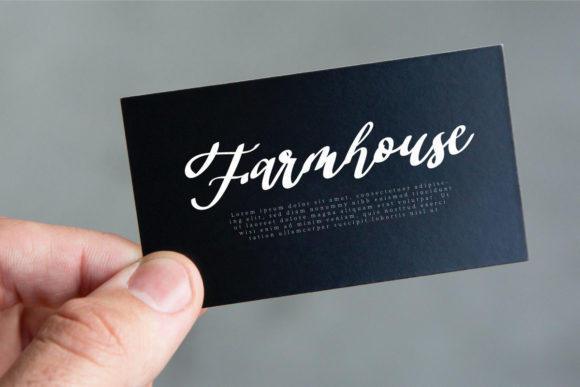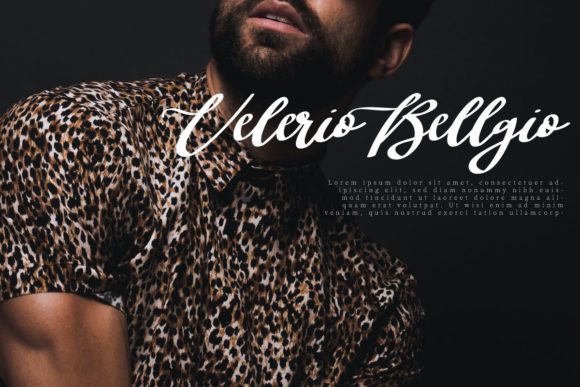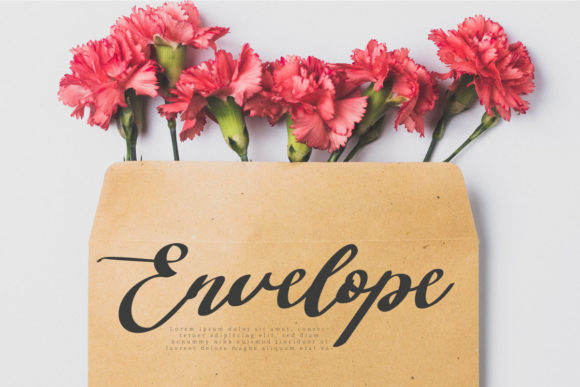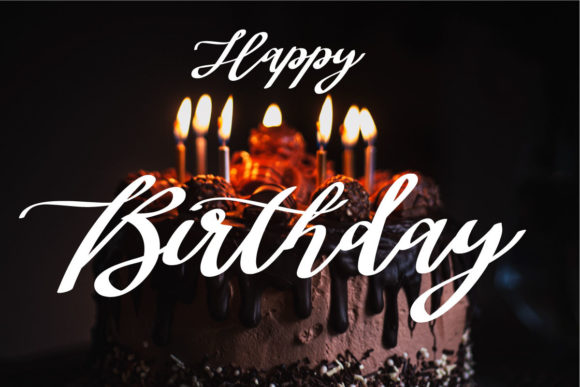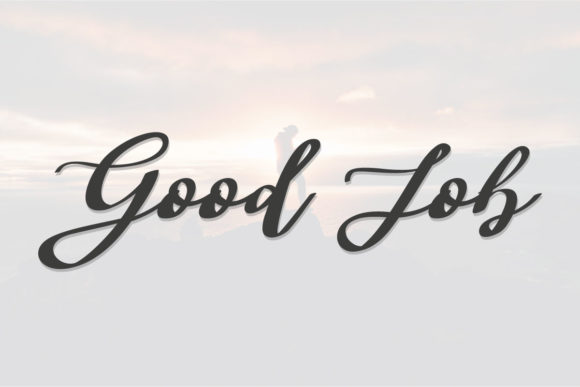
Unleashing the Magic of Handwritten Typography
You know that moment when a design idea strikes, and you just can’t wait to bring it to life? For many creatives, it’s the spark that ignites a project’s potential. For me, it’s the thrill of combining typography and color to create an unforgettable visual experience. And that’s exactly what happens when you work with the Ackerley Font.
Ackerley Font is a stunning, flowing handwritten font that’s perfect for a wide range of projects, from wall displays and wedding invitations to social media post logos and product packaging. Its beauty lies in its versatility, making it an invaluable asset for designers looking to add a touch of elegance and sophistication to their work.
Whether you’re a seasoned pro or just starting out, the Ackerley Font is sure to become your go-to choice for any project that requires impressive typography. Its unique character and expressive flair will elevate your designs to new heights, setting you apart from the crowd and leaving a lasting impression on your audience.
Ackerley Font Key Features
- Unique Characteristics: Ackerley Font is known for its elegant, cursive script design, making it ideal for creative and artistic applications, such as invitations, certificates, and wedding stationery.
- Kerning and Ligatures: Ackerley Font features advanced kerning and ligature pairs, ensuring that letter combinations are displayed smoothly and professionally, even at smaller font sizes.
Ackerley Font Review
Overall, I was impressed with the Ackerley font, but it’s not without its quirks. Let’s dive into what works well and what doesn’t.
- Unique Character: Ackerley has a distinct, modern look that sets it apart from other fonts. Its unique character makes it perfect for branding or adding a touch of personality to your design.
- Legibility: The font is highly legible, even at smaller sizes, making it suitable for body text or headlines.
- Creativity: Ackerley’s irregularities and asymmetries make it a great choice for creative projects, such as posters or infographics.
- Readability at Very Small Sizes: While Ackerley is legible at smaller sizes, it starts to lose its clarity at very small sizes (e.g., < 10pt).
- Lack of Consistency: The font’s irregularities can sometimes make it difficult to read, especially for those with visual impairments.
The Ackerley font is a great choice for designers looking to add a touch of modernity and personality to their designs. While it has some limitations, its unique character and high legibility make it a solid choice for a wide range of projects.
Ackerley Font is suitable for:
1. Headings and titles.
2. Branding and logos.
3. Invitations and event materials.
4. Editorial and publishing materials.
5. Web design and development.